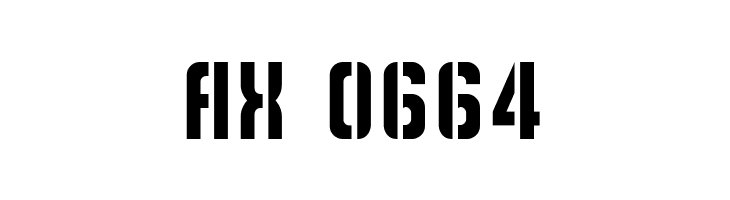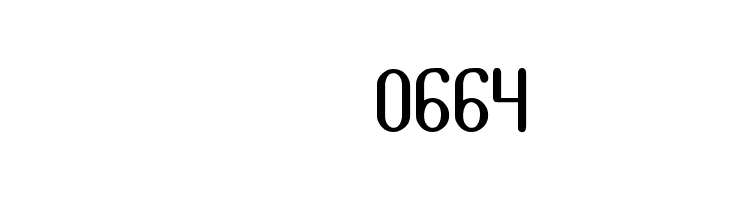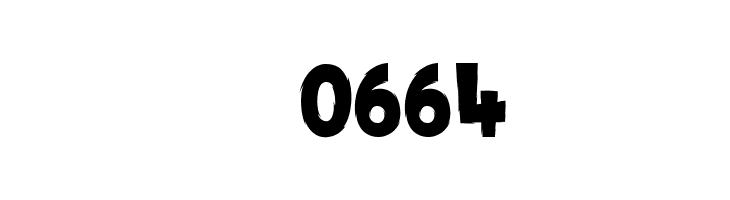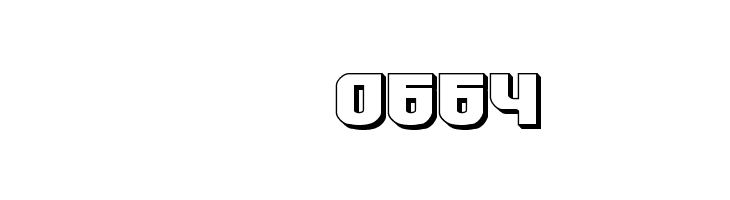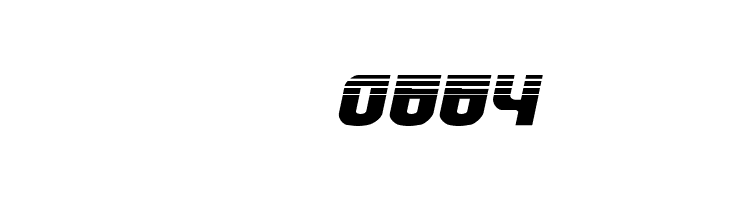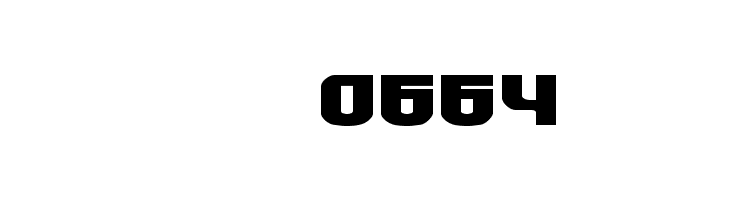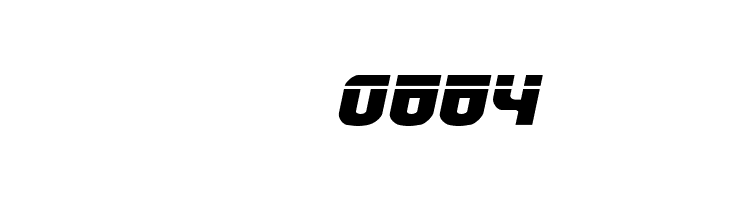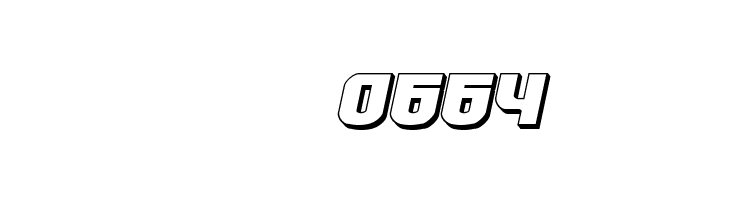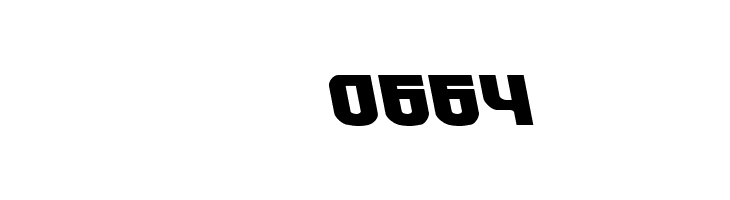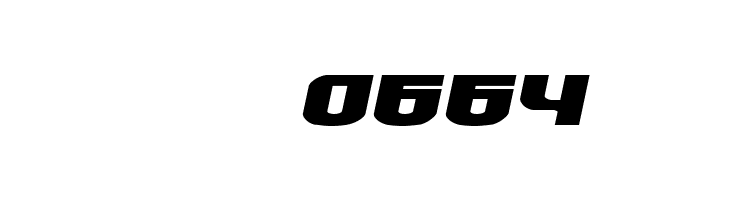
• Sowjetschablone
A bold, stencil-style font with a strong industrial aesthetic.
• Space
A bold, textured font with a modern and decorative style.
• Space Comics
A bold, playful font with a comic book style, featuring thick, rounded characters.
• Space of Time
A modern, rounded font with a playful yet clean aesthetic.
• SpaceTransit
A distressed, textured font with a rugged, vintage appearance.
• Spanish Teletext
A pixelated, retro font inspired by early digital displays.
• SpartanburgSC
A bold, angular font with a gothic, medieval aesthetic.
• SpecialCase
A playful, handwritten font with a graffiti-like, artistic style.
• Spectral
A modern, angular font with sharp, geometric features.
• Spectre 007
A modern, angular font with a futuristic and dynamic style.
• speedhunter line
A bold, dynamic font with a three-dimensional effect and a sense of motion.
• speedhunter line
A bold, dynamic font with a strong emphasis on movement and energy.
• speedhunterline
A bold, dynamic font with double-lined strokes and a sense of movement.
• Speedwagon
A bold, geometric font with a strong, industrial feel.
• Speedwagon 3D
A bold, 3D geometric font with a striking, shadowed appearance.
• Speedwagon 3D Italic
A bold, 3D italic font with a modern, dynamic style.
• Speedwagon Condensed
A bold, condensed font with geometric shapes and uniform strokes.
• Speedwagon Condensed Italic
A bold, condensed, and italicized font with a dynamic and energetic style.
• Speedwagon Expanded
A bold, geometric font with an industrial and modern style.
• Speedwagon Expanded Italic